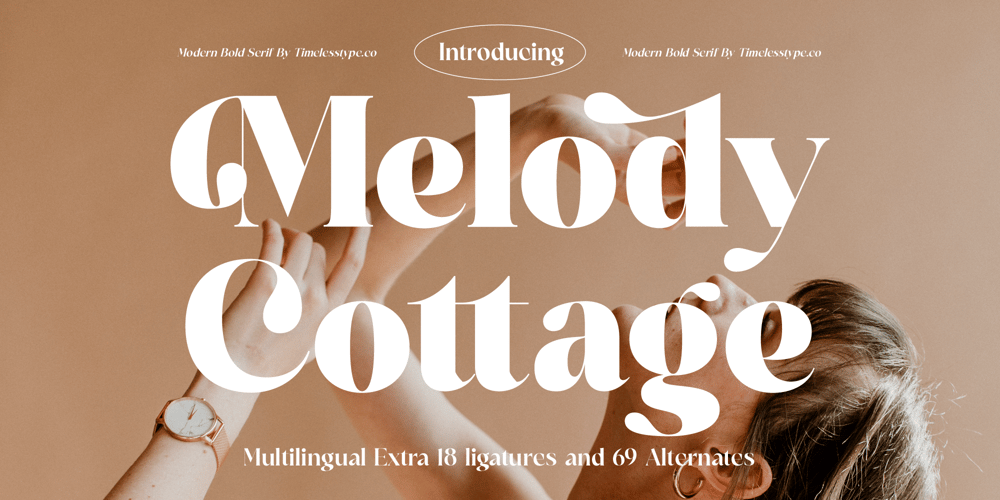
Melody Cottage
Melody Cottage font
Melody Cottage Font Family was designed by Heru Utama Putra and published by Timelesstype Studio. Melody Cottage contains 2 styles and family package options. Melody Cottage – Modern Bold Serif , from Timelesstype, Suitable for any projects such as: logos, branding projects, homeware designs, product packaging, mugs, quotes, posters, shopping bags, t-shirts, book covers, name card, invitation cards, greeting cards, label, photography, watermark, special events, and all your other luxury and beautiful projects that need a Luxury Serif taste.